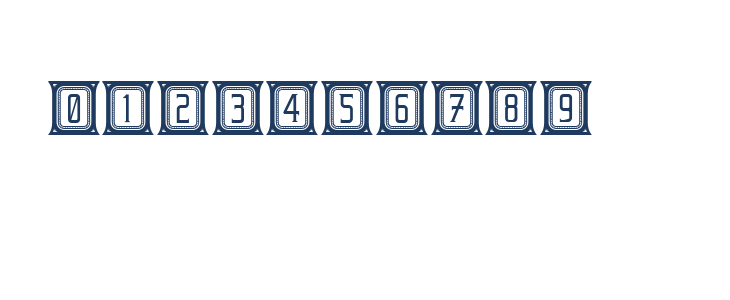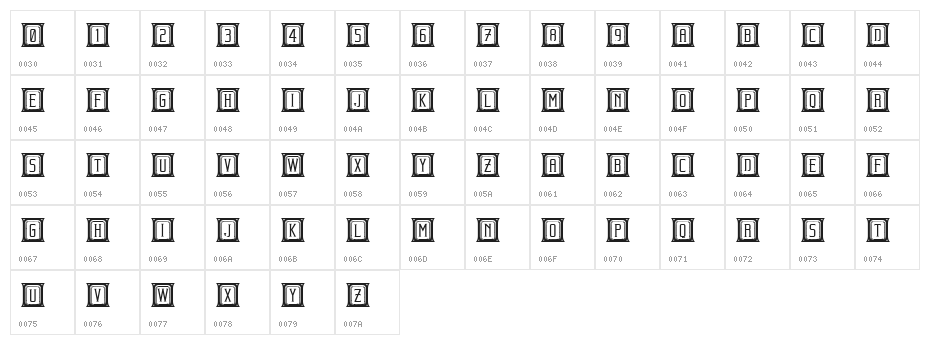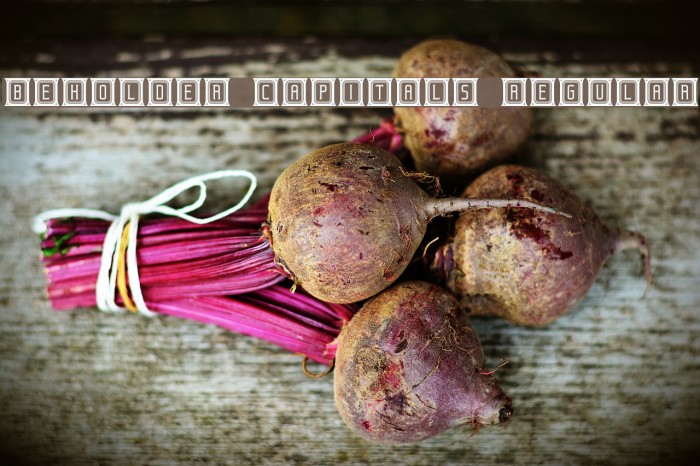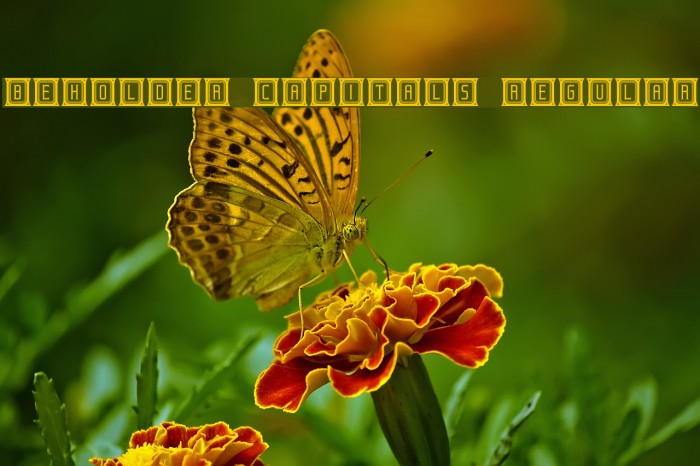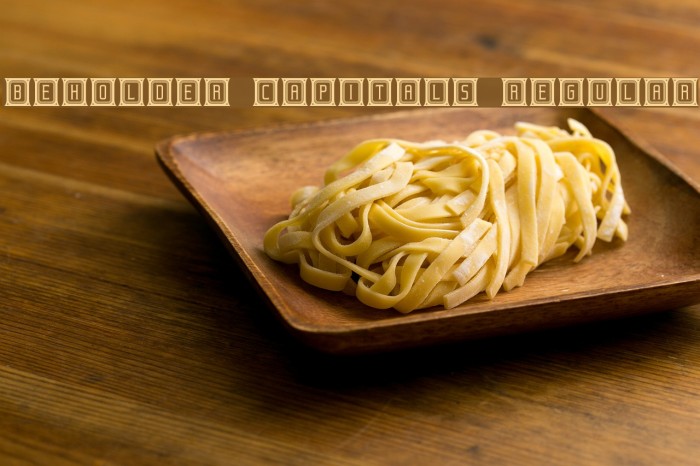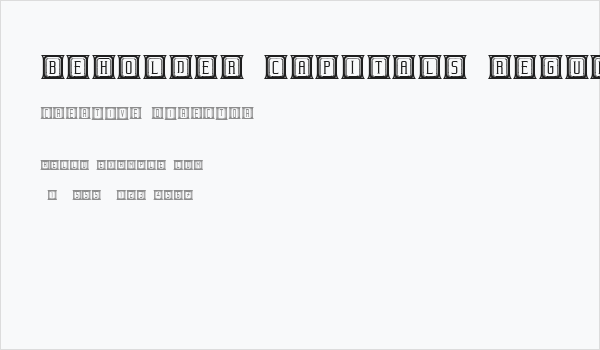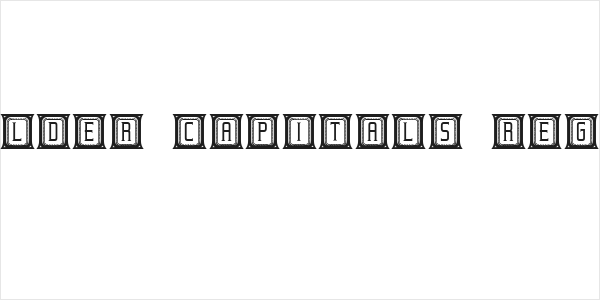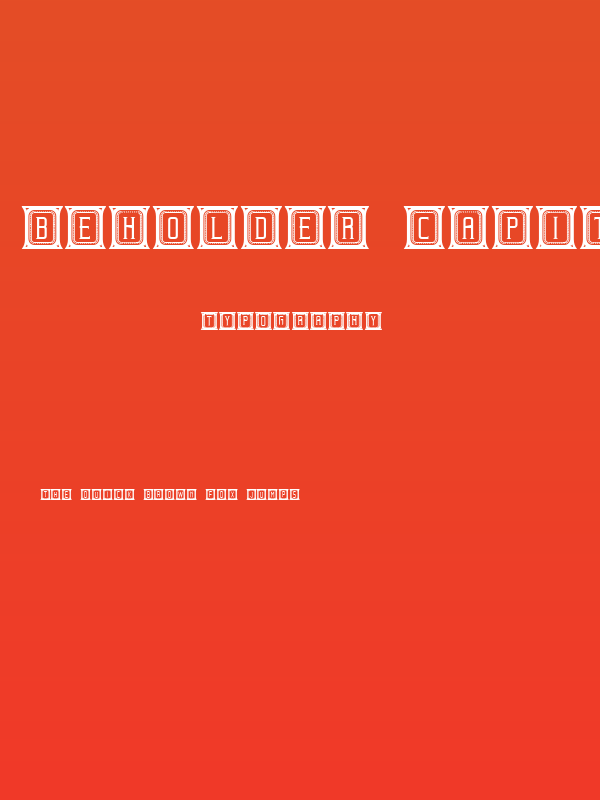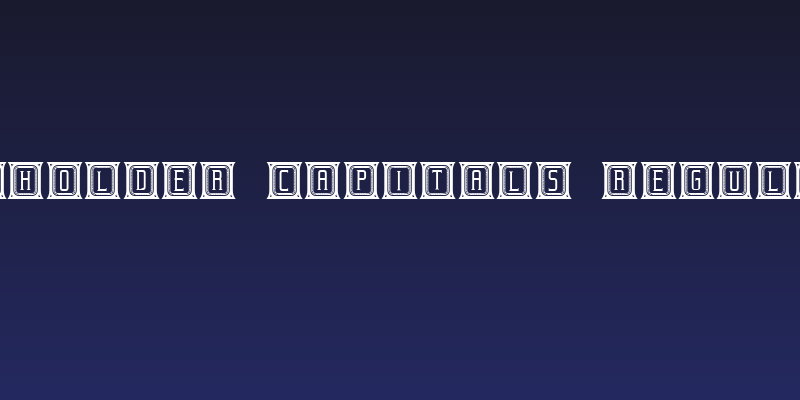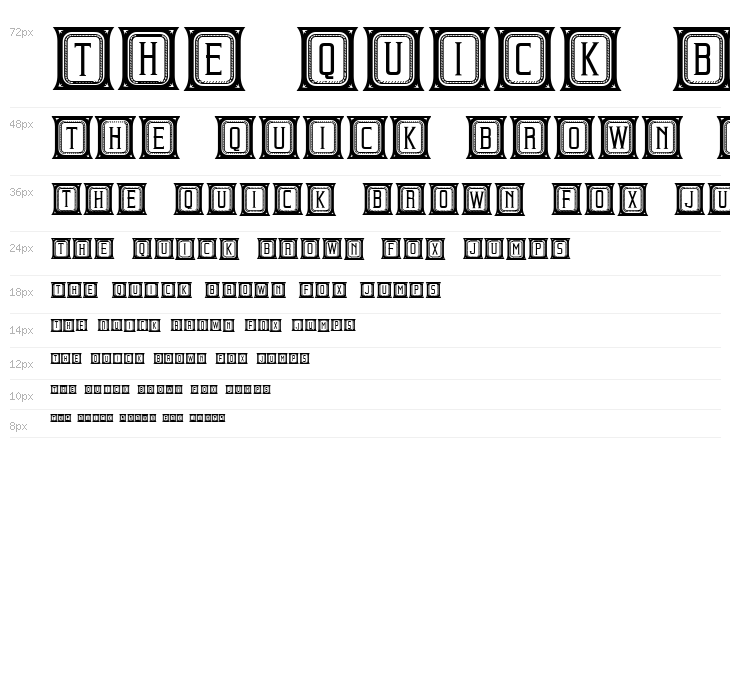
Beholder Capitals Regular Font
Beholder Capitals Regular Description
This font features a bold and decorative style with a unique boxed design around each character. The letters are uppercase and have a distinct, vintage appearance, reminiscent of old typewriter keys or signage. Each character is enclosed in a rectangular frame with a shadow effect, giving it a three-dimensional look. The font has a strong presence and is highly legible, making it suitable for attention-grabbing headlines or titles. The consistent framing around each letter adds a uniformity that enhances its decorative appeal.
| Proposed Projects | Ideal for vintage-themed posters, retro signage, book covers, and branding that requires a strong, eye-catching typeface. |